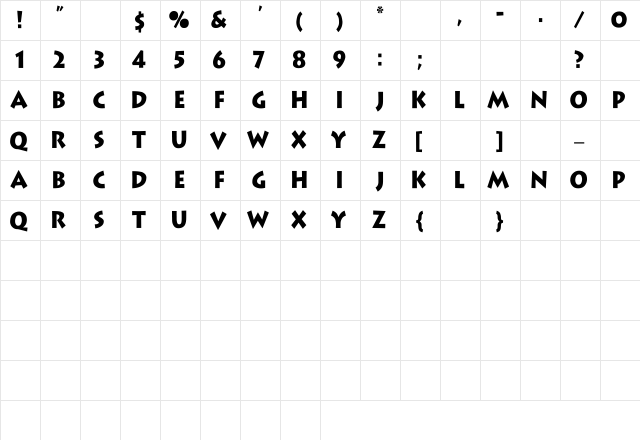
Lithograph Th Regular Free Font
Lithograph Th Regular
Lithograph Th Family
Lithograph Th Regular
Complete Lithograph Th Regular glyph index. Displaying only characters natively supported by Lithograph Th Regular font.
Design Context for Lithograph Th
Lithograph Th is a composed and adaptable typeface that performs quietly and consistently across a wide range of design contexts.